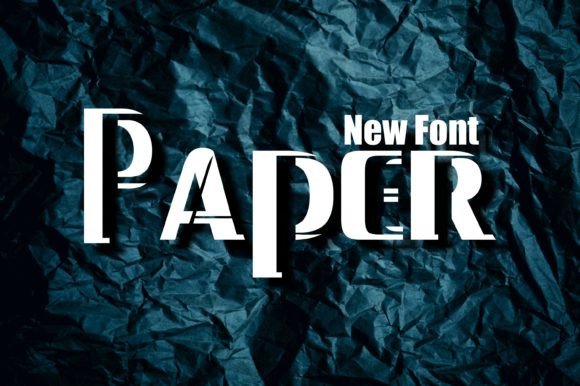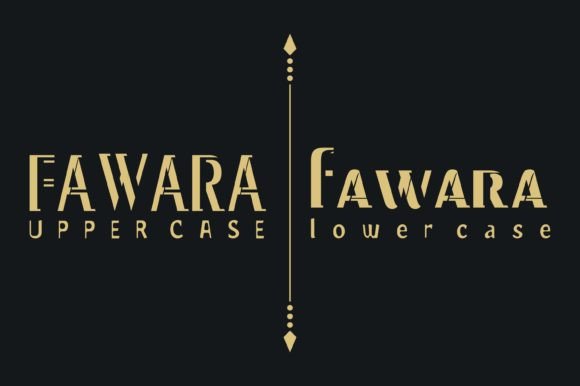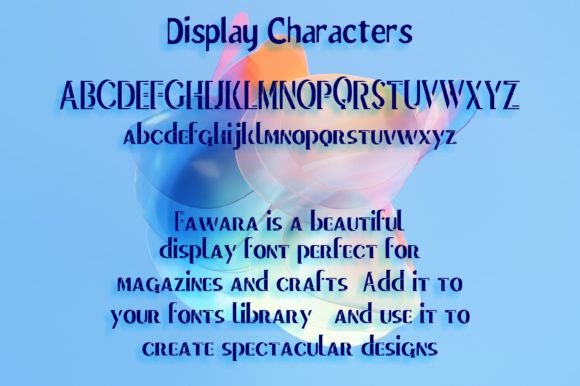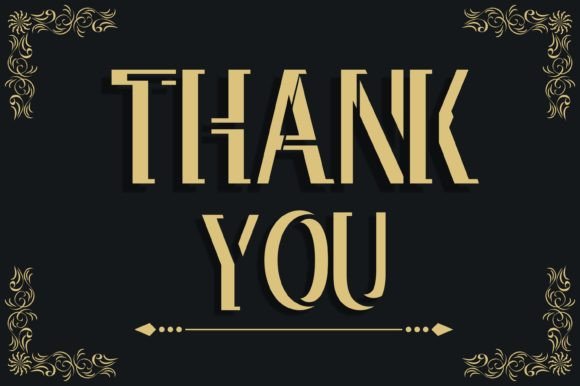
The Fawara Font: A Designer’s New Best Friend
I’ll never forget the time I was working on a magazine project, and my client asked me to create a stunning header that would grab the reader’s attention. I spent hours scouring the internet for the perfect font, but nothing seemed quite right. That was until I stumbled upon the Fawara font. 💡
This beautiful display font has been a game-changer for me, and I’m excited to share it with you. Whether you’re a designer, crafter, or creative hobbyist, Fawara is perfect for adding a touch of elegance to your projects.
An Honest Review of Fawara Font
- ✨ Elegant and sophisticated design that’s perfect for magazines, crafts, and more
- ✅ Highly versatile, with a range of uses from titles to headings
- 💫 Beautifully crafted with attention to detail, making it a joy to work with
While Fawara is an amazing font, there are a few things to keep in mind 🤔:
- ⚠️ It may not be the best choice for body text, as it’s a display font designed for headlines
- ⚠️ Some of the more intricate details may not render well at smaller font sizes
The Story Behind Fawara Font
Fawara is a beautiful display font designed with elegance and sophistication in mind. While I couldn’t find any information on the designer’s inspiration, it’s clear that Fawara was crafted with love and attention to detail.
| Author | mhd.usman00 |
Q: What is Fawara font best used for?
A: Fawara is a display font best used for titles, headings, and other large text elements.